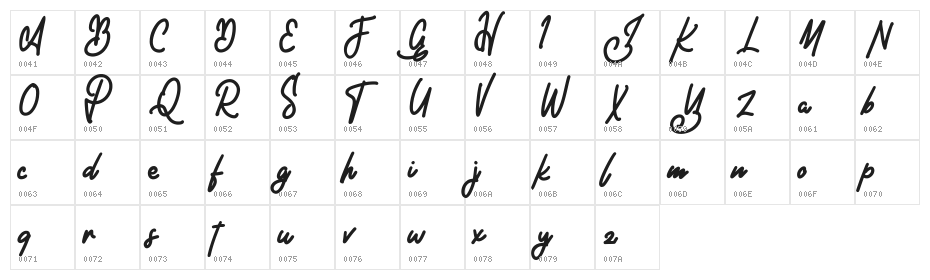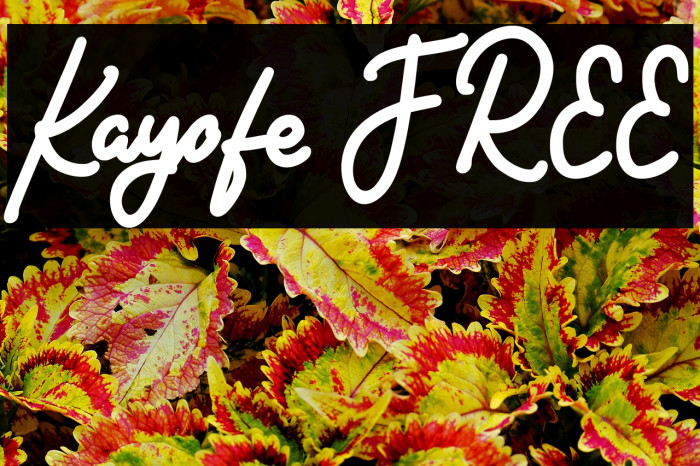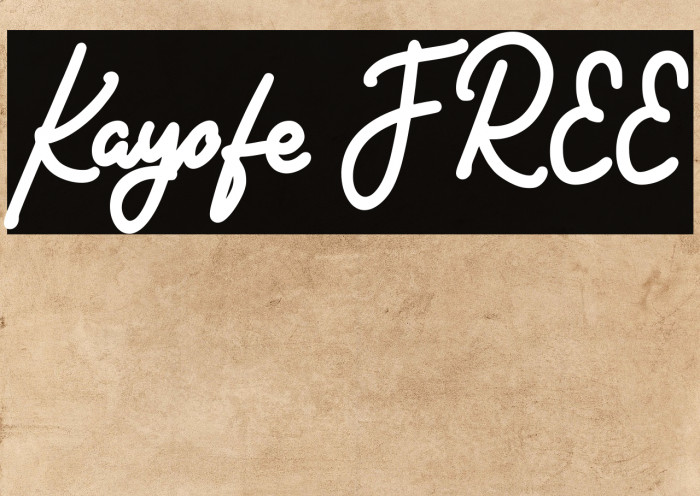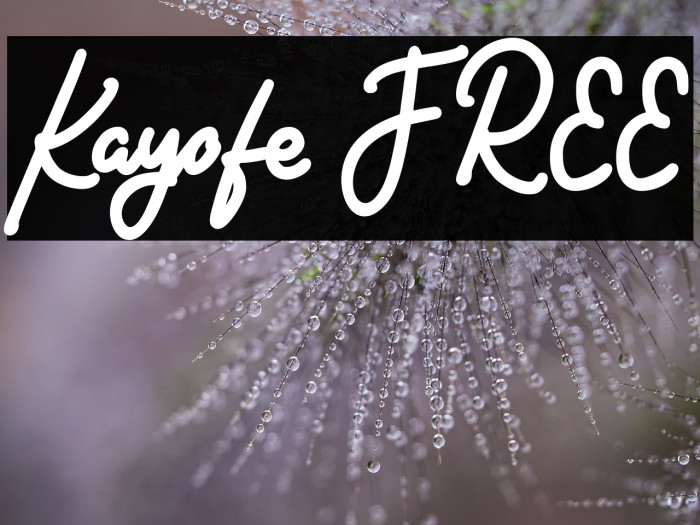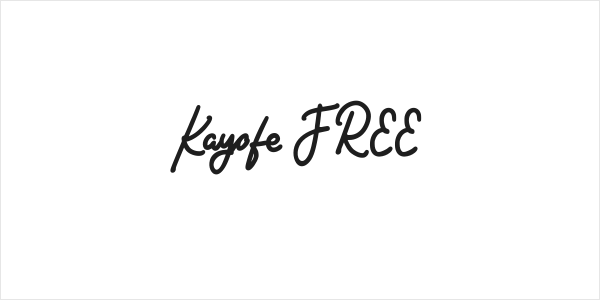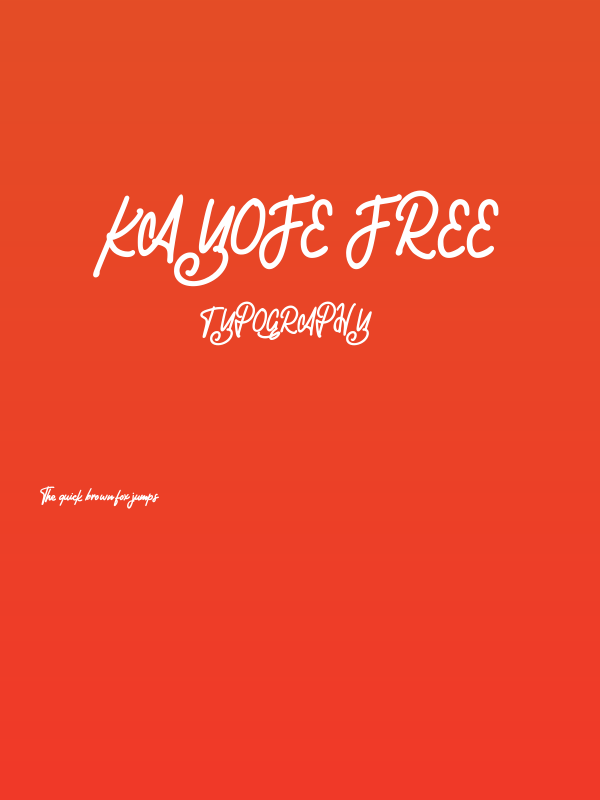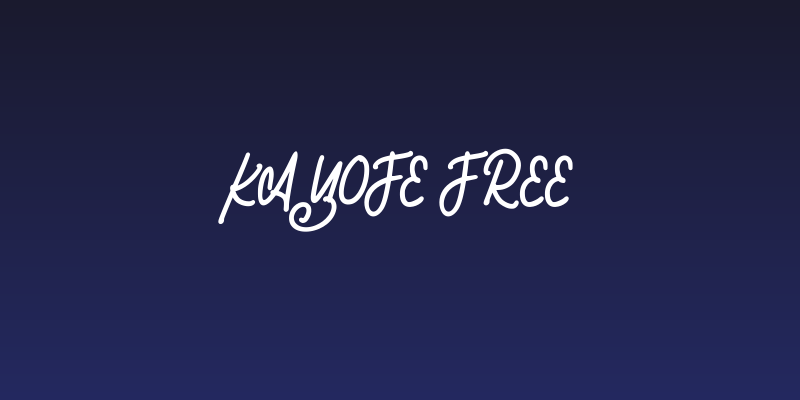
Kayofe FREE Font
Kayofe FREE Description
This font features a dynamic and expressive script style, characterized by its fluid and cursive letterforms. The uppercase letters exhibit a playful yet elegant flair, with smooth curves and loops that suggest a handwritten quality. The lowercase letters maintain this fluidity, offering a consistent and harmonious appearance throughout. The font's bold strokes and varying line thicknesses add a sense of movement and energy, making it ideal for creative and artistic projects. Its unique style is both modern and timeless, suitable for a variety of design applications.
| Proposed Projects | Ideal for branding, invitations, greeting cards, and artistic projects that require a personal touch. |